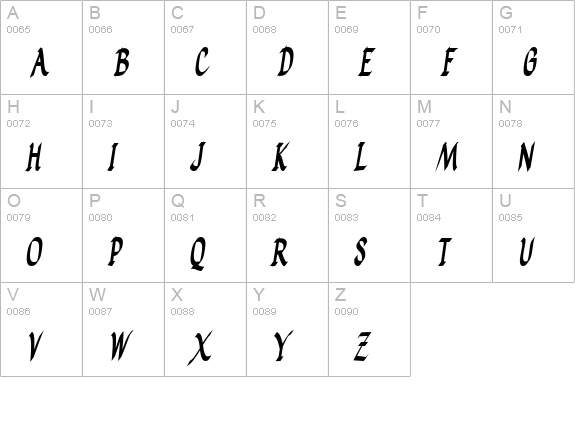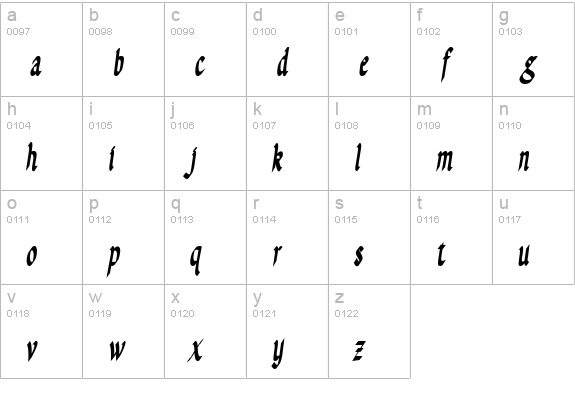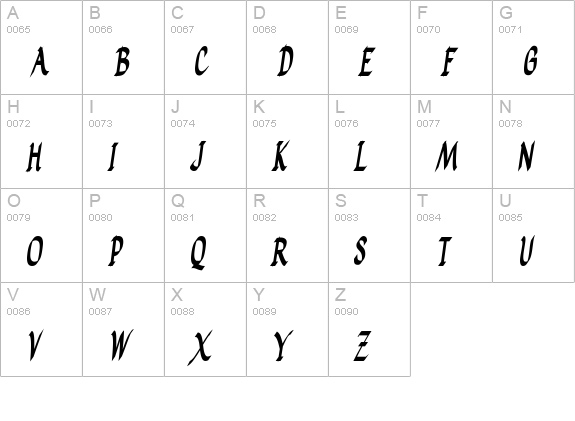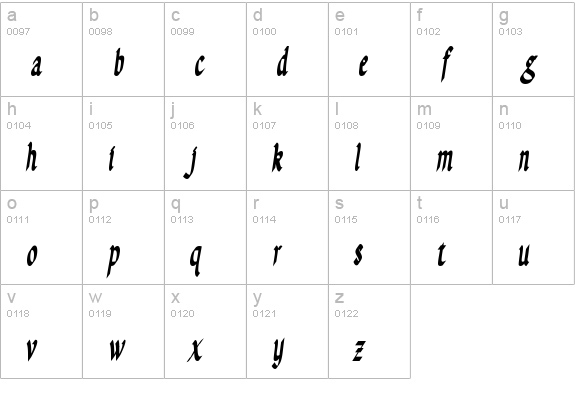
CK Lionheart Font Details
Introducing CK Lionheart font, a bold and dynamic typeface that exudes strength and elegance. With its unique mix of sharp angles and sleek curves, this font is perfect for creating eye-catching designs that demand attention. Whether you're working on a logo, poster, or branding project, CK Lionheart will make a powerful statement. What sets CK Lionheart apart is not just its striking appearance, but also the fact that it is completely free to use. That's right, this premium-quality font is available for download at FontsMarket.com at no cost. So go ahead and unleash your creativity with CK Lionheart – the font that truly embodies the spirit of courage and determination.